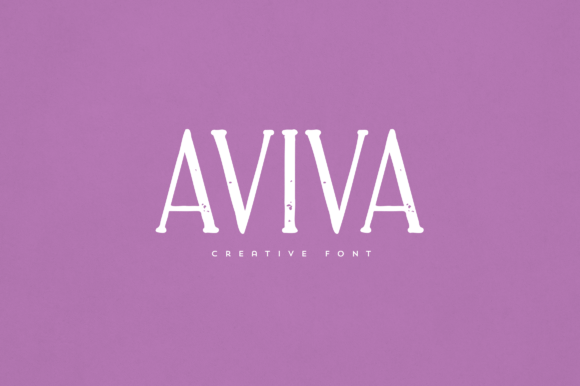
Introducing Aviva Font: Elevate Your Typography with Elegance and Versatility
Are you tired of using the same old fonts for your design projects? Look no further than Aviva Font, a stunning and adaptable typeface that will take your typography to the next level. With its elegant and versatile design, Aviva Font is perfect for a wide range of applications, from branding and logo design to product packaging and magazine headers.
What Makes Aviva Font So Special?
Aviva Font is a beautifully crafted typeface that boasts a unique and sophisticated design. Its elegant lines and curves make it perfect for creating stunning logos, headlines, and text overlays that will capture the attention of your audience. Whether you’re working on a branding project, designing a product package, or creating a magazine header, Aviva Font is the perfect choice.
Aviva Font is a dream come true for designers and crafters who are looking for a font that will make their work stand out. With its versatility and elegance, Aviva Font can be used in a variety of creative projects, including:
- Branding projects: Create a lasting impression with a custom logo or typography that reflects your brand’s personality.
- Home-ware designs: Add a touch of elegance to your home decor with Aviva Font used in wall art, signs, or other decorative items.
- Product packaging: Make your product packaging stand out with a beautiful and unique font that will set your brand apart.
- Magazine headers: Create stunning magazine headers that will grab the attention of your readers.
- Text overlays: Use Aviva Font as a stylish text overlay to add a touch of sophistication to any background image.
Key Features of Aviva Font
So, what makes Aviva Font so special? Here are some of its key features:
- Elegant and versatile design
- Perfect for branding, logo design, and product packaging
- Stunning for headlines, magazine headers, and text overlays
- Scalable to any size without losing quality
Why Choose Aviva Font?
With so many fonts available, why choose Aviva Font? Here are just a few reasons:
- Unique and sophisticated design
- Highly versatile and adaptable
- Perfect for a wide range of design projects